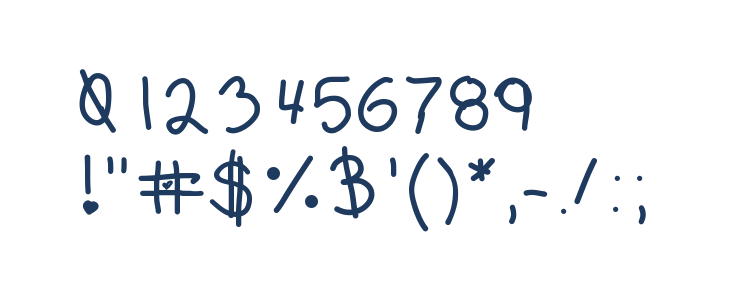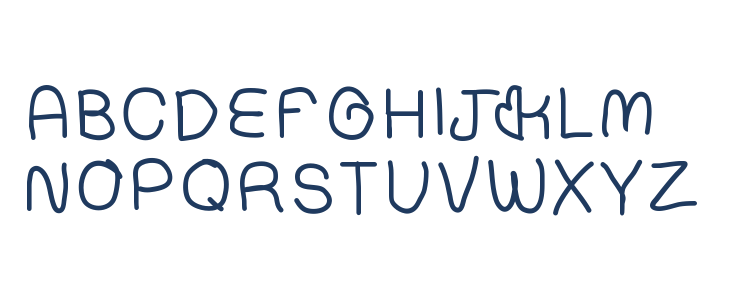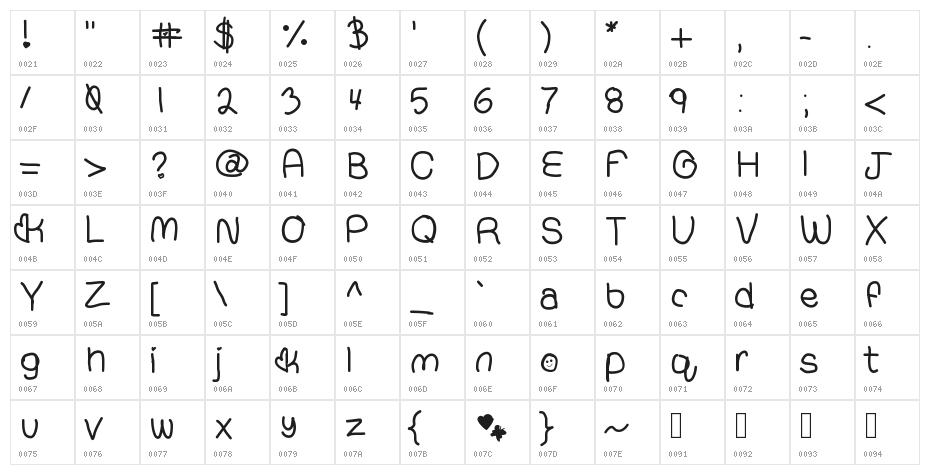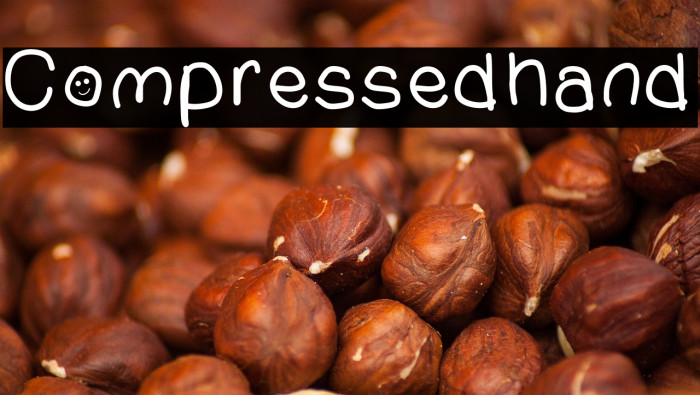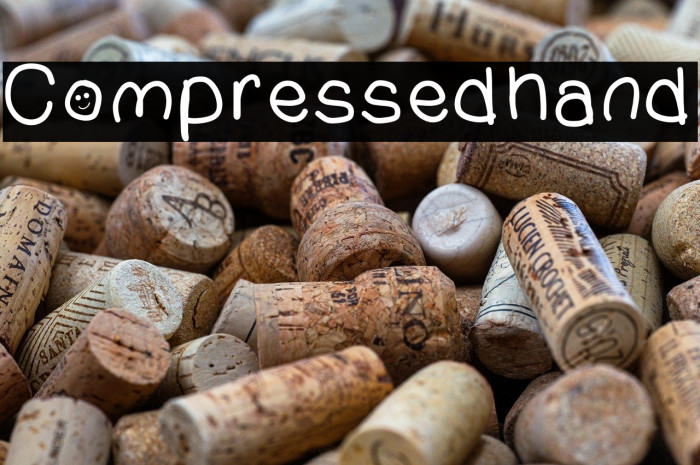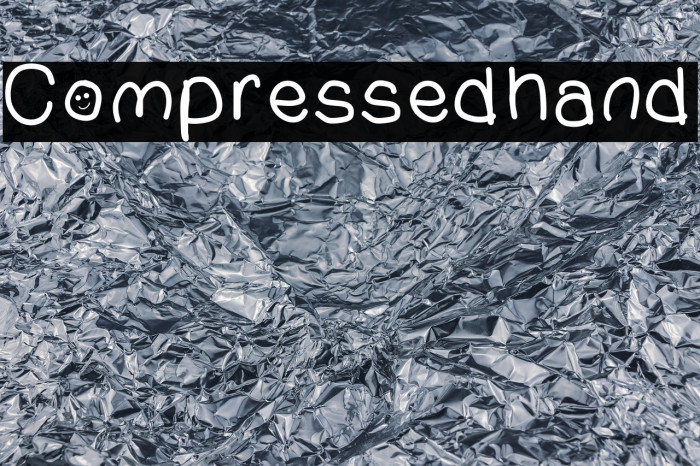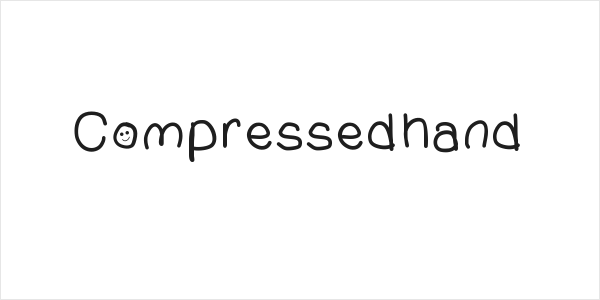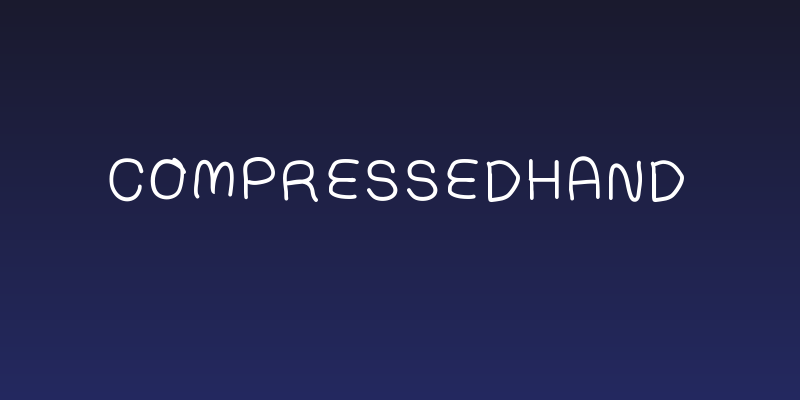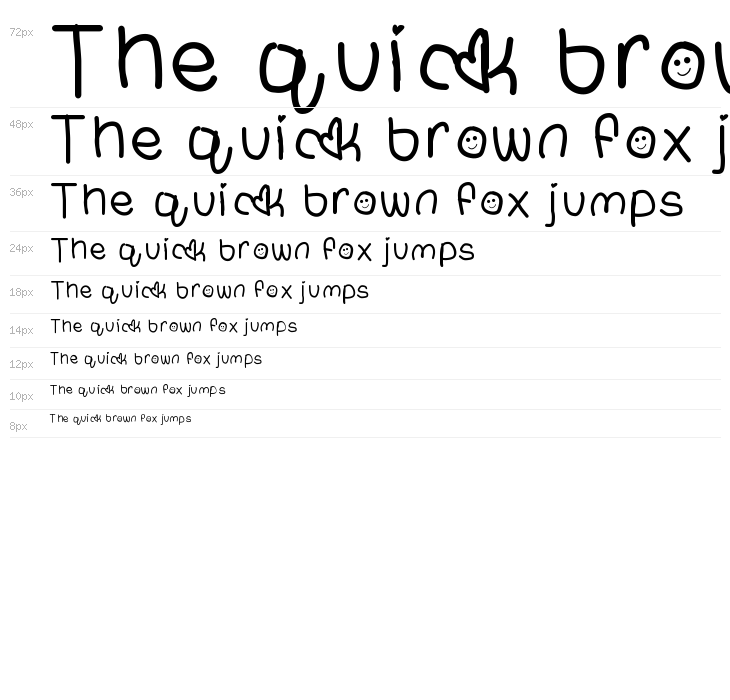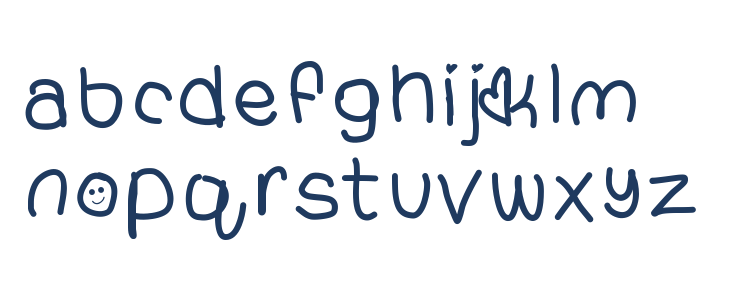
Compressedhand Font
Compressedhand Description
A playful, handwritten sans-serif font with irregular, rounded letterforms and a casual, informal appearance. The strokes are consistent in thickness, and the characters have a slightly compressed, quirky style.
| Overall Style | Playful, Informal, Handwritten |
| Use Case | Headlines, Posters, ChildrenΓ’β¬β’s materials, Informal notes |
| Proposed Projects | ChildrenΓ’β¬β’s books, greeting cards, informal posters, playful branding, educational materials. |